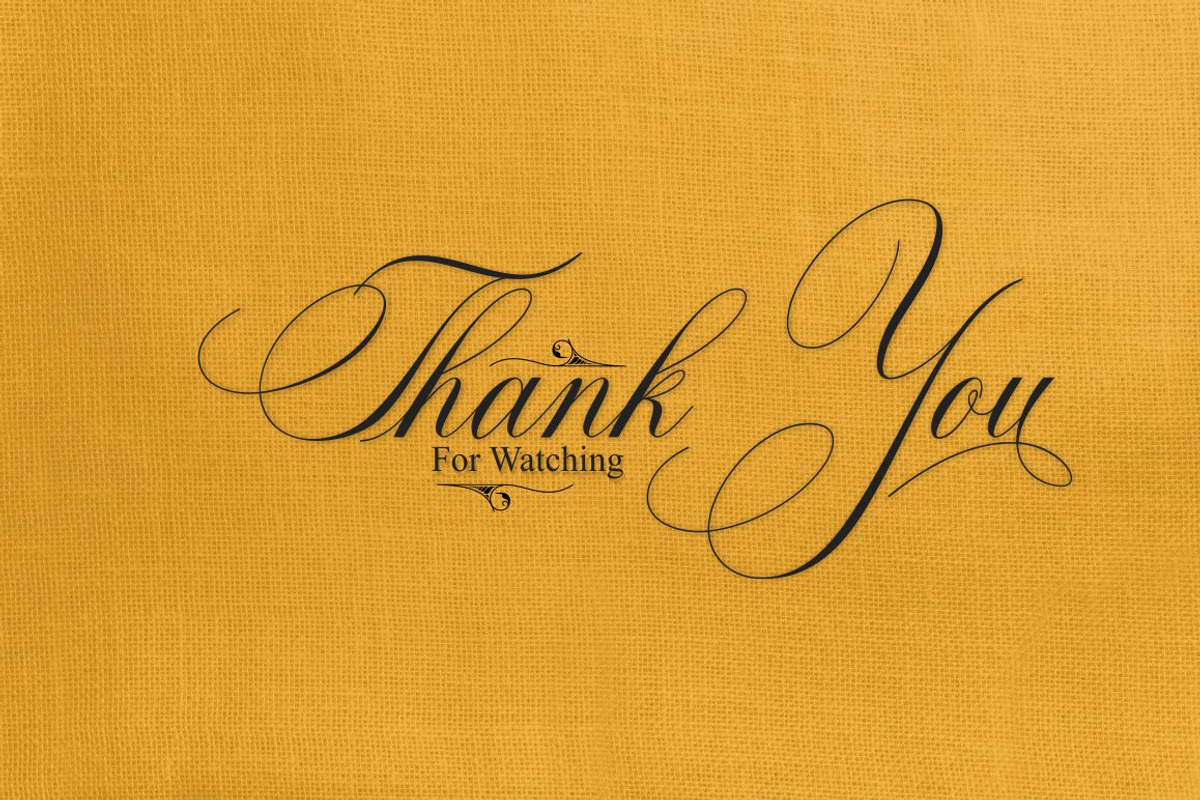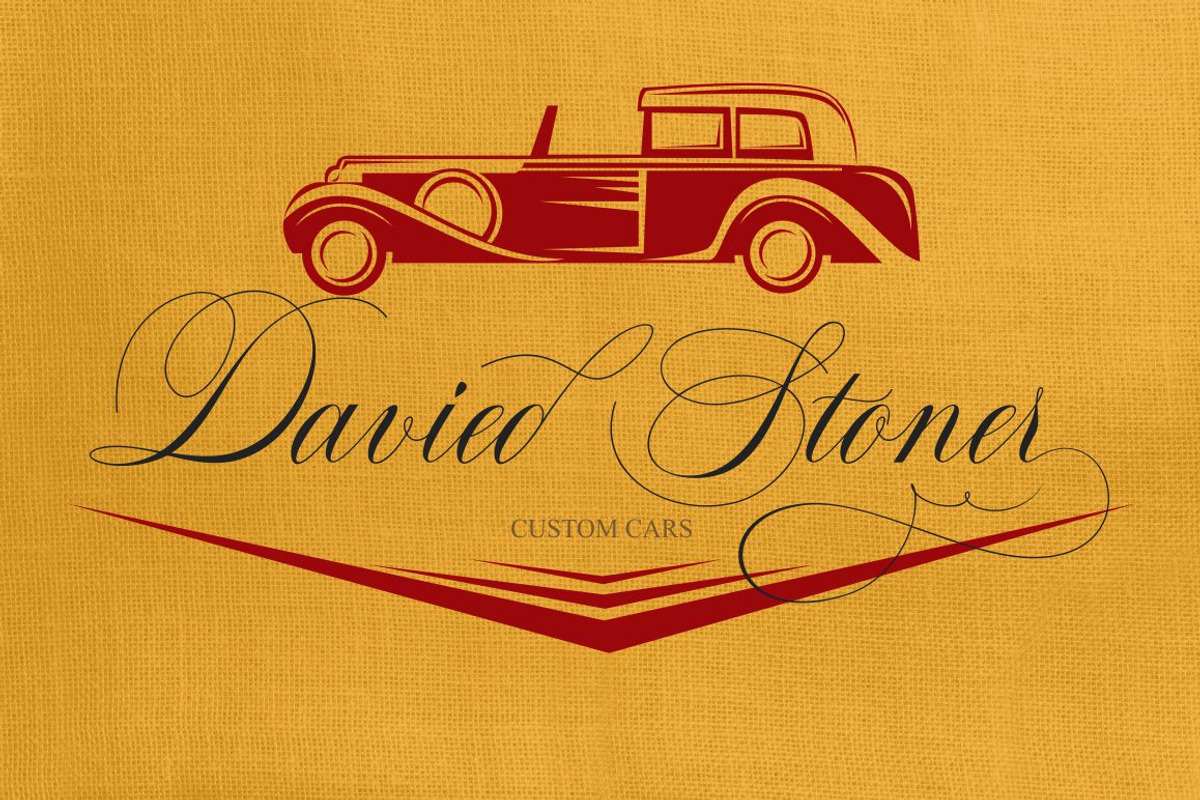
Sinday College
Introducing Sinday College
NEW UPDATE SWASH
Sinday College is classic calligraphy font. This is a classic thin font with a italic style. Here you will get a beautiful classic font. This font is available some modern swirl that can make your work look elegant, sweet and perfect.
With a style like this, this font will be suitable in use for logo's, branding projects, homeware designs, product packaging, mugs, quotes, posters, shopping bags, logo's, t-shirts, book covers, name card, invitation cards, greeting cards, and all your other lovely projects.
You can use this font for your job very easily. Because there are many features in it. Contains the complete set of lower and uppercase letters, punctuation, numbers, web fonts, and multilingual support. This font also includes several ligatures and alternative style Stylistic Set For those of you who have software that is capable of working OpenType (Corel Draw / Photoshop / Illustrator / InDesign).